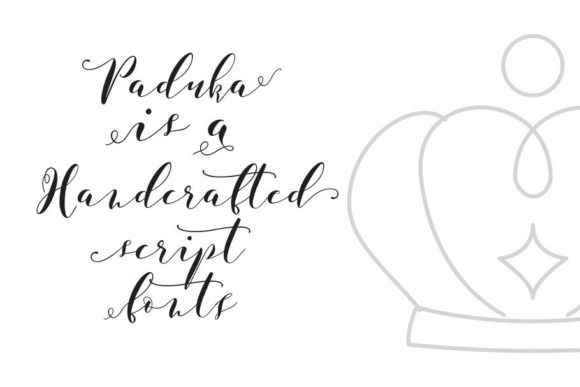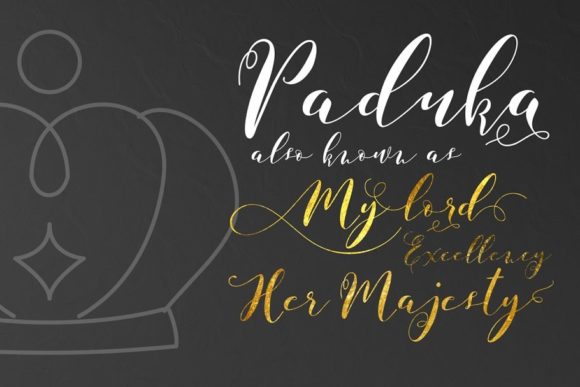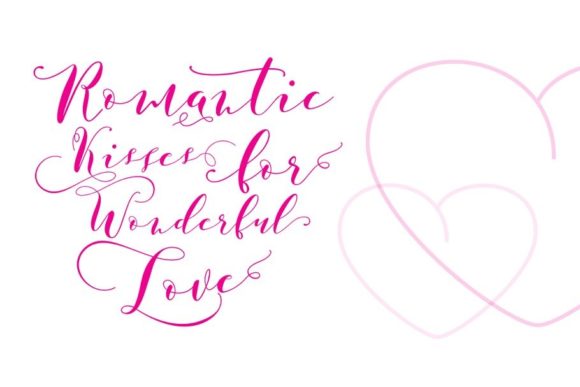
Introduction to Paduka Script Font
As a designer, there’s nothing quite like the thrill of finding the perfect font to elevate a creative project. It’s that ‘aha’ moment when everything comes together, and your design jumps off the page. For me, that moment happened when I stumbled upon the stunning Paduka Script Font. Its elegant, refined lines and modern aesthetic had me hooked from the start.
With its classy look and versatility, Paduka Script Font is a design resource that can be used for a wide range of projects, from logos and branding to invitations and social media posts. Whether you’re working on a high-end design or a personal creative project, this font is sure to make a lasting impression. Plus, with its PUA encoded design, accessing all the amazing glyphs and ligatures is a breeze.
Key Features of Paduka Script Font
- Unique and elegant design, perfect for creative projects that require a touch of sophistication.
- High-quality font with transparent background, ideal for use on digital platforms and design resources.
- Paduka Script Font is a versatile design resource that can be used in various contexts, from branding and advertising to editorial and publishing.
- Characteristics include elegant flourishes, subtle texture, and a range of weights and styles, allowing for a high degree of customization and flexibility.
Honest Review: Paduka Script Font
I recently stumbled upon the Paduka Script Font and was blown away by its elegance and sophistication. This free download is a fantastic design resource for any creative project that requires a touch of luxury.
- High quality lines and strokes that give it a premium feel ✨
- Extremely versatile, can be used for various design purposes, from branding to invitations ✨
- Transparent background, making it easy to work with ✨
However, I do have to mention a few limitations:
- ⚠️ It’s a bit challenging to read in smaller font sizes
- ⚠️ Limited character set, which might be a concern for longer texts
Overall, I’m thoroughly impressed with the Paduka Script Font. Its unique design and high-quality lines make it a valuable addition to any designer’s toolkit. While it may have some limitations, I believe it’s still a fantastic resource for any creative project that requires a touch of elegance.
The Paduka Script Font is perfect for wedding invitations, birthday cards, or any other creative project where you want to add a touch of elegance and sophistication.